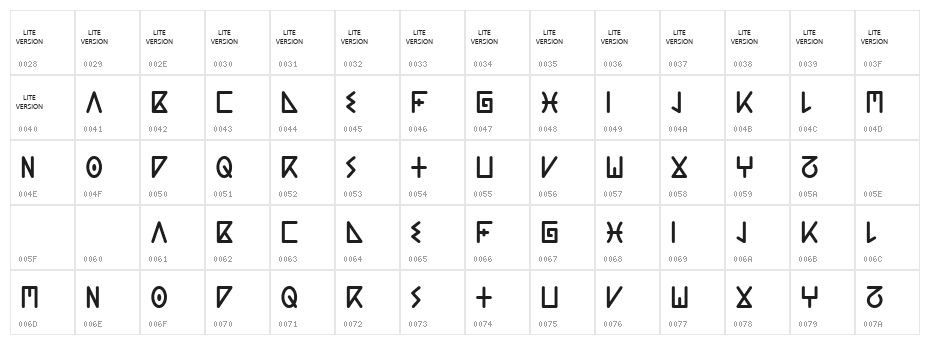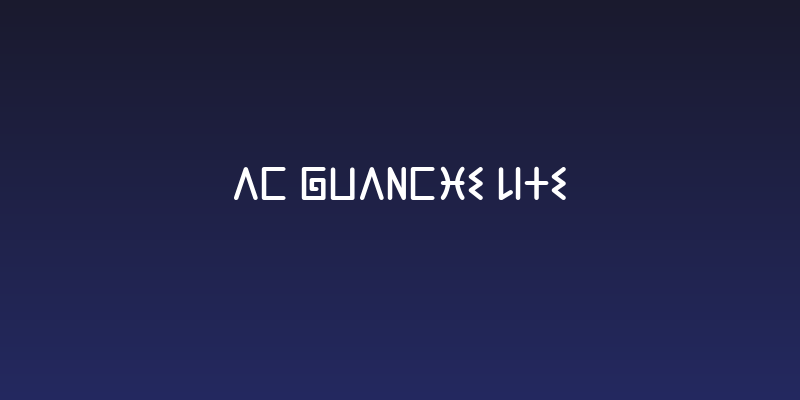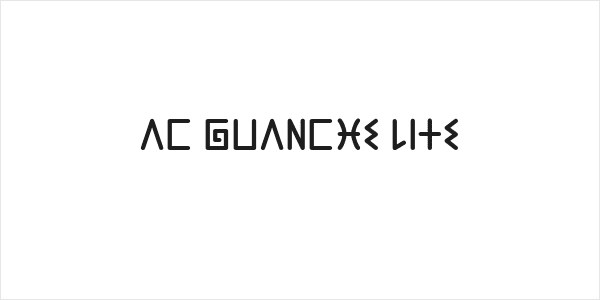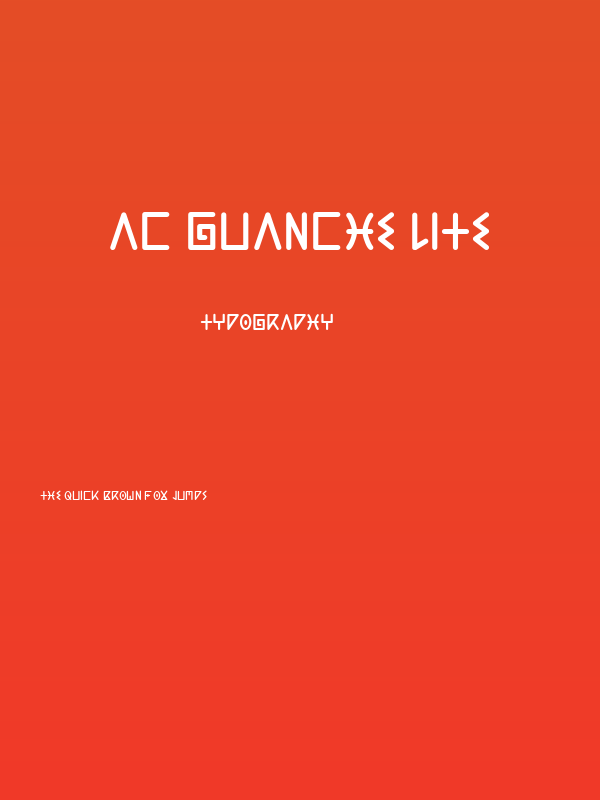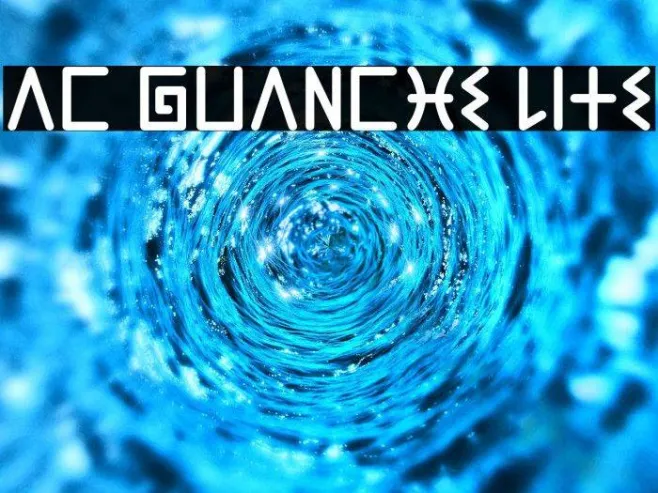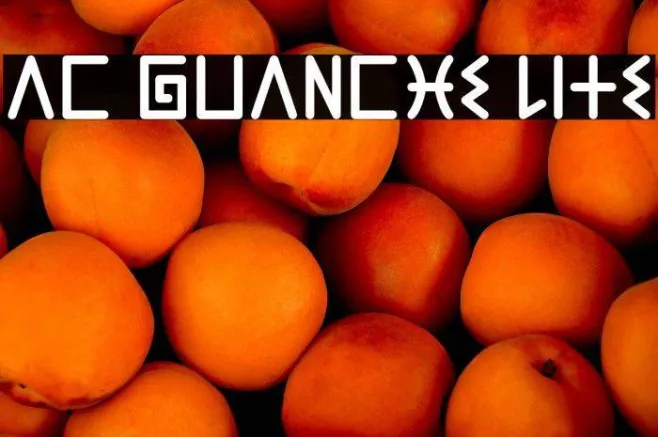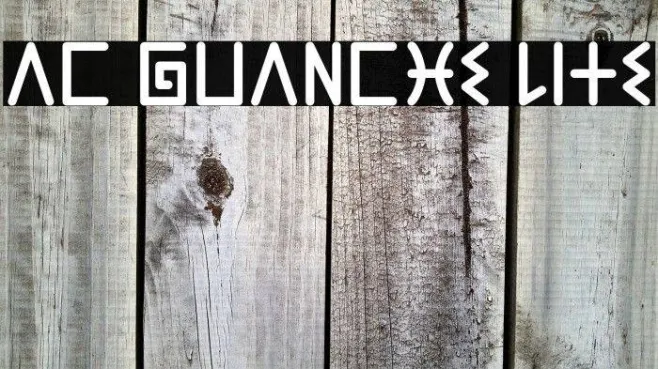
AC Guanche Lite Font
AC Guanche Lite Description
This font features a unique and bold design with geometric shapes and sharp angles, giving it a distinct and modern appearance. The characters are crafted with a consistent stroke width, creating a uniform and cohesive look. The uppercase letters exhibit a mix of angular and curved elements, while the lowercase letters maintain a similar style with slightly more rounded features. The numbers and special characters follow the same design principles, ensuring a harmonious overall aesthetic. This font's distinctive style makes it suitable for creative and artistic projects where a strong visual impact is desired.